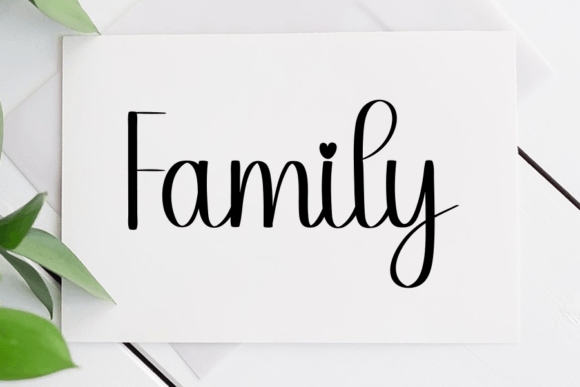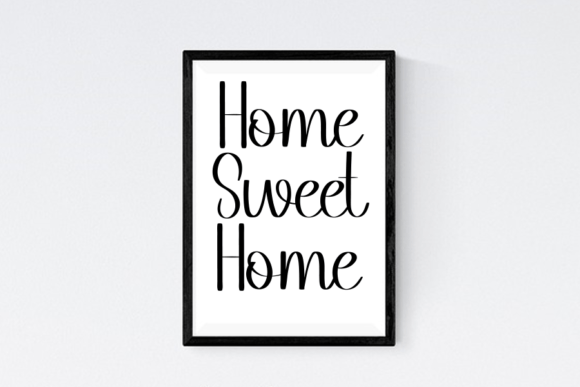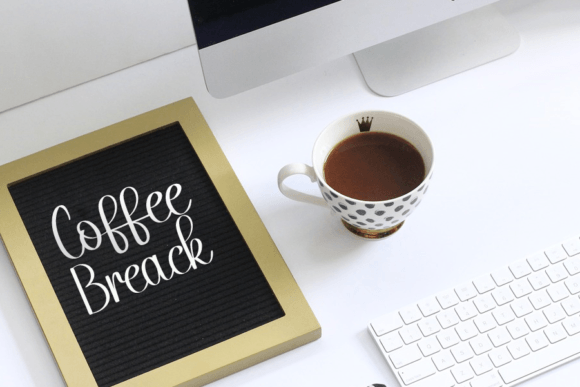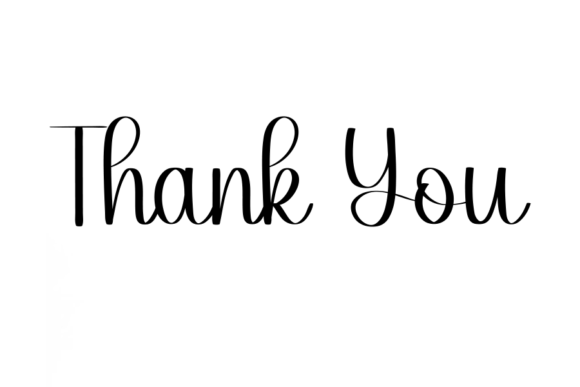
Mandala Signature Font
About Mandala Signature Font
Mandala Signature is a flowing handwritten font characterized by an elegant touch, making it perfect for a variety of creative projects. This font boasts a distinct and timeless style that is sure to captivate and enhance the beauty of your designs.
The flowing and elegant nature of Mandala Signature adds a touch of sophistication, making it well-suited for a range of applications. Whether you’re working on digital graphics, print materials, or any creative project, this font is designed to bring a sense of grace and distinction to your text.
Imagine Mandala Signature gracing the pages of wedding invitations, adding a romantic and personalized feel to the celebration. Picture it on branding materials, where its unique charm contributes to a memorable and distinct brand identity. Whether used in digital or print media, this font is crafted to elevate the visual appeal of your projects.
The versatility of Mandala Signature allows it to shine in various contexts, from elegant invitations to sophisticated branding. Its distinct and timeless style ensures that your designs stand out and make a lasting impression.
In essence, Mandala Signature is more than just a font; it’s a creative tool crafted to bring elegance and style to your projects. Let it be the choice that transforms your creative endeavors into visually stunning and timeless expressions.